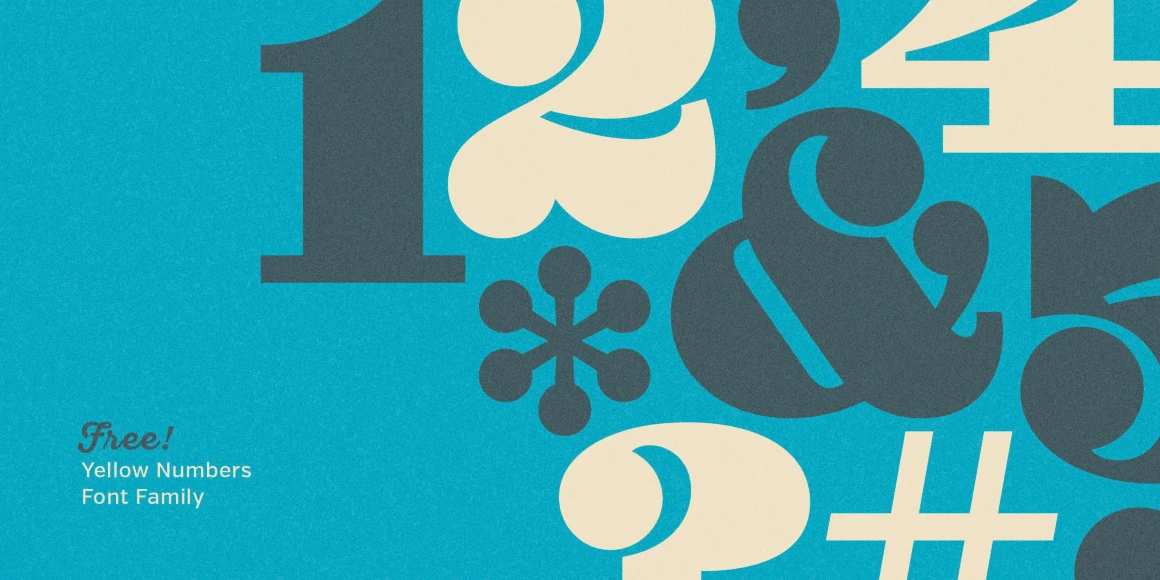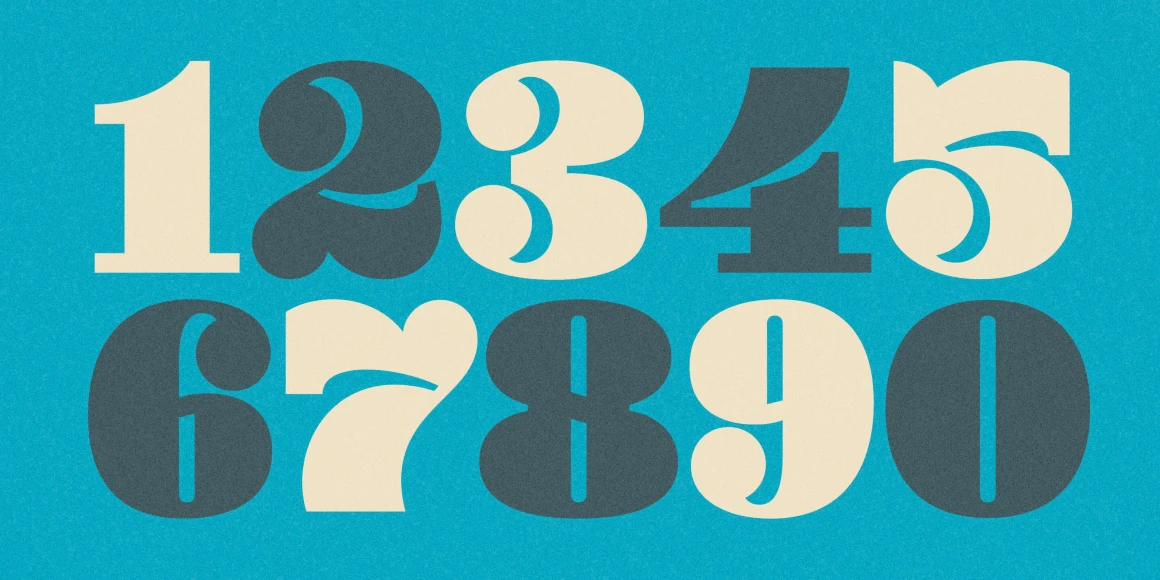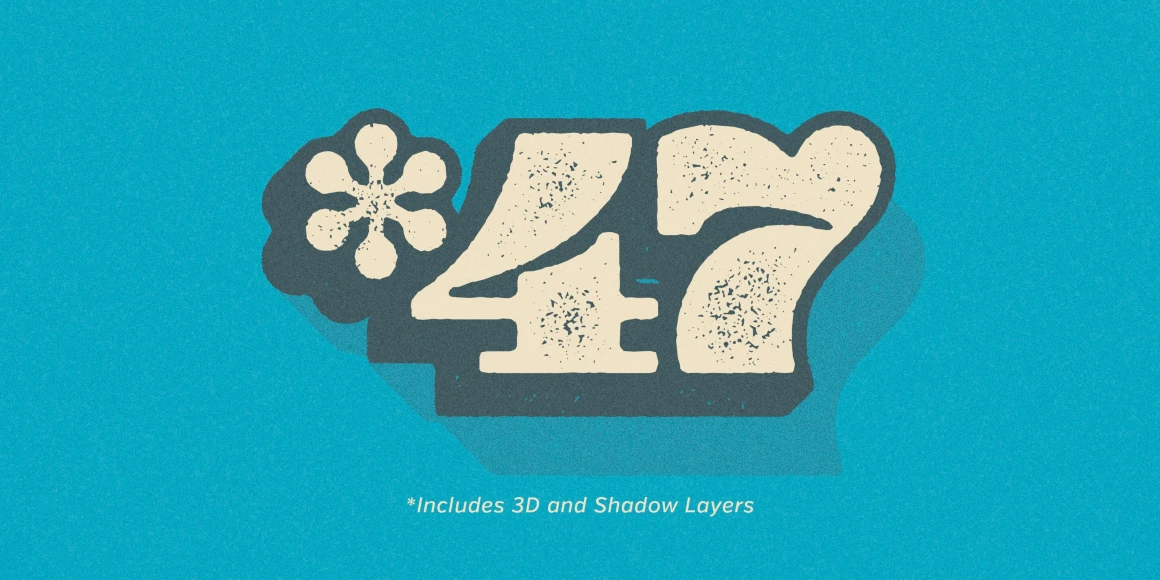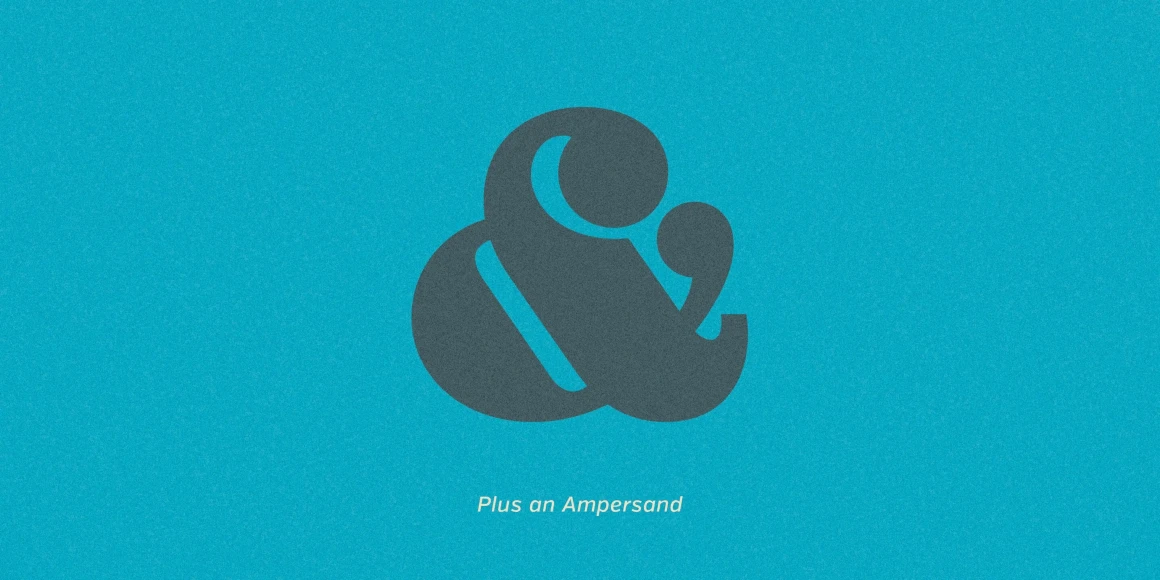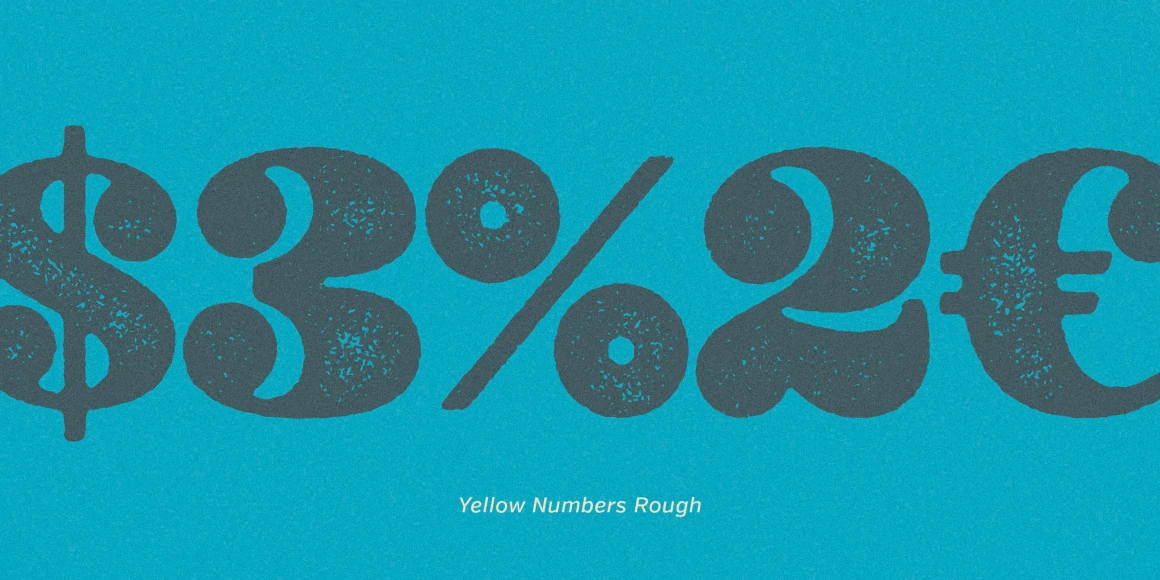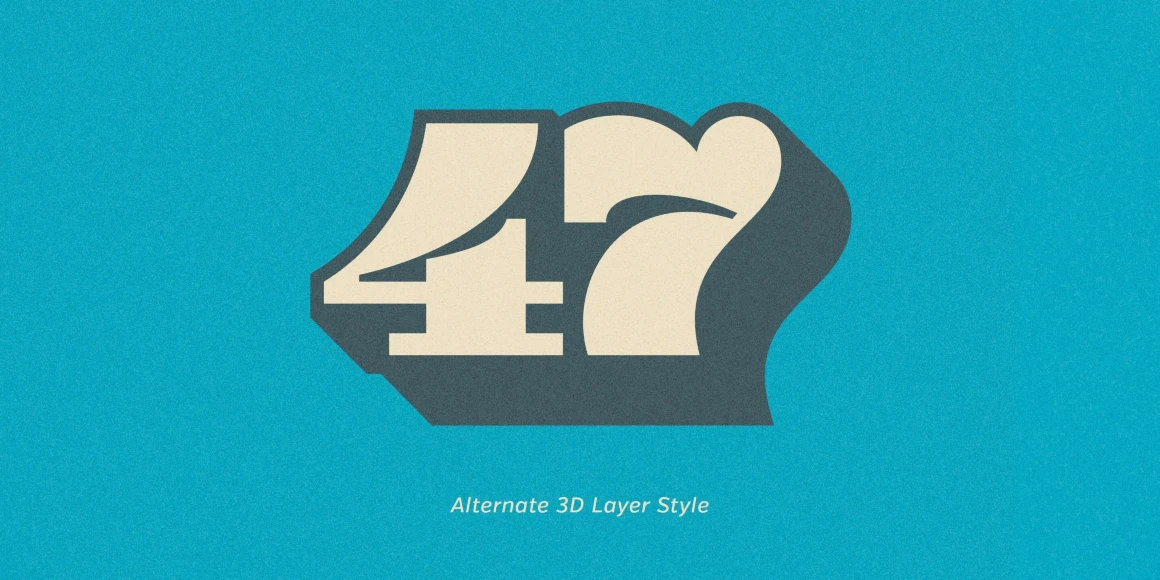
Yellow Numbers
From Yellow Design Studio
A collection of fat, funky numbers and symbols in regular, soft and rough versions. Each set has 3D and shadow layers for added pop. The rough family features 5 different texture options for every character.
Designed by Ryan Martinson